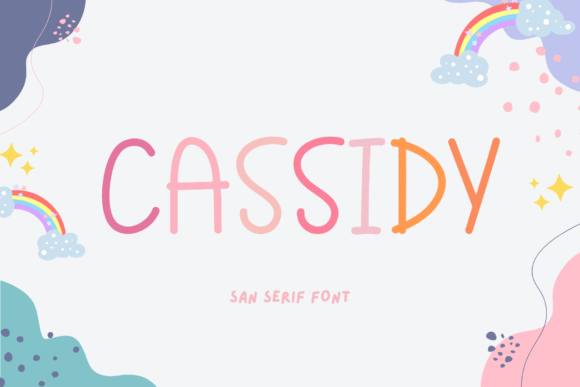
Get Ready to Groove with the Cassidy Font
Have you ever been browsing through a vintage thrift store, stumbling upon a quirky t-shirt that catches your eye? The handwritten font on that tee sparks an idea – you want to create something similar, something that radiates the same free-spirited vibe. That’s exactly where the Cassidy Font comes in.
This adorable, handwritten font is designed to bring your creative ideas to life. Perfect for designing t-shirts, tote bags, hats, stickers, wedding invitations, logos, cards, quotes, and more, the Cassidy Font will make your designs stand out and shine. For designers, this font is a valuable addition to their toolkit, offering a unique touch that’s both modern and retro at the same time.
With the Cassidy Font, you can unleash your creativity and produce stunning designs that will leave a lasting impression. Whether you’re a seasoned designer or a creative enthusiast, this font is sure to inspire your next project.
Cassidy Font Key Features
- Unique Characteristics: Cassidy Font is known for its elegant and sophisticated design, making it suitable for luxury and high-end branding.
- Font Style: It’s a modern sans-serif font with a touch of classic elegance, featuring clean lines and a balanced x-height.
Cassidy Font Review
Cassidy Font is a beautiful, elegant font that exudes a sense of sophistication and refinement. I love its classic feel and the way it adds a touch of warmth to any design project. ✨ The rounded edges and gentle curves make it perfect for creating a welcoming atmosphere, and the subtle texture adds depth and interest. ✨ The font is highly legible, making it suitable for both body text and headings.
However, there are some limitations to consider. ⚠️ The font may not be the best choice for projects that require a bold, statement-making font. It’s also not ideal for use in small text sizes, as the details can get lost. ⚠️ Additionally, some users may find the font’s rounded edges too soft or even childish in certain contexts.
Overall, I think Cassidy Font is a great addition to any designer’s toolkit. While it may not be the most versatile font, it excels in situations where a classic, elegant feel is desired. With its unique texture and beautiful curves, it’s sure to add a touch of sophistication to any design project.
Pros:
- Beautiful, elegant design
- Highly legible
- Classic feel with a touch of warmth
Cons:
- May not be suitable for bold, statement-making designs
- Not ideal for small text sizes
- Some users may find it too soft or childish
Getting the Most Out of Cassidy Font
To get the most out of Cassidy Font, use it for:
- Titles and headings
- Emphasis and accent text
- Creating a vintage or distressed look
Cassidy Font is commonly used for:
- Retro-style posters and advertisements
- Wedding and event invitations